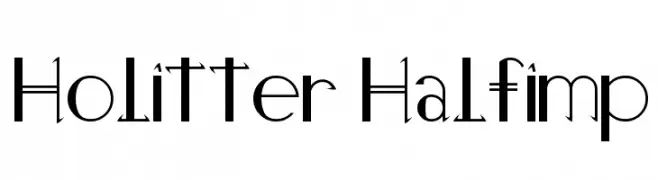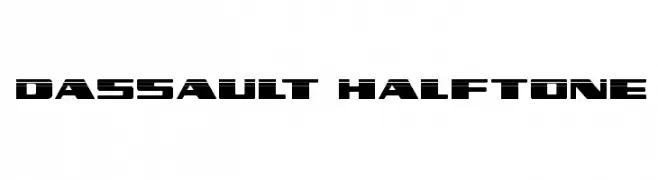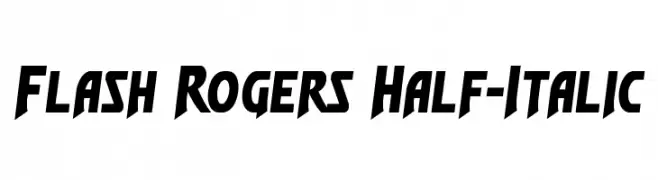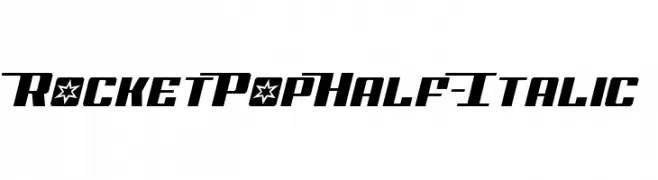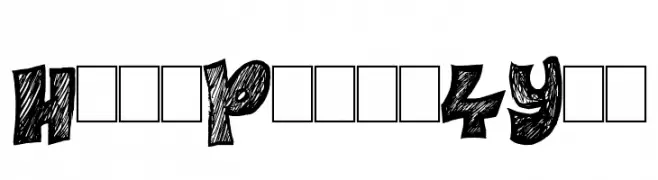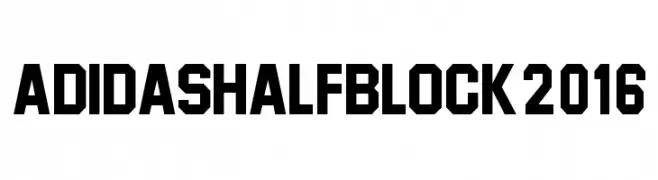
A bold, geometric font with a three-dimensional, industrial look.
A modern, geometric font with sharp angles and elegant curves.
A bold, italicized font with a futuristic and dynamic design.
A bold, geometric font with a futuristic and industrial style.
A bold, dynamic font with sharp angles and a slanted, energetic style.
A bold, italicized font with angular shapes and star motifs, exuding a futuristic style.
A bold, hand-drawn font with a playful, textured design.
A playful, hand-drawn font with bold, irregular letterforms.
A bold, geometric font with strong, angular lines and a blocky appearance.